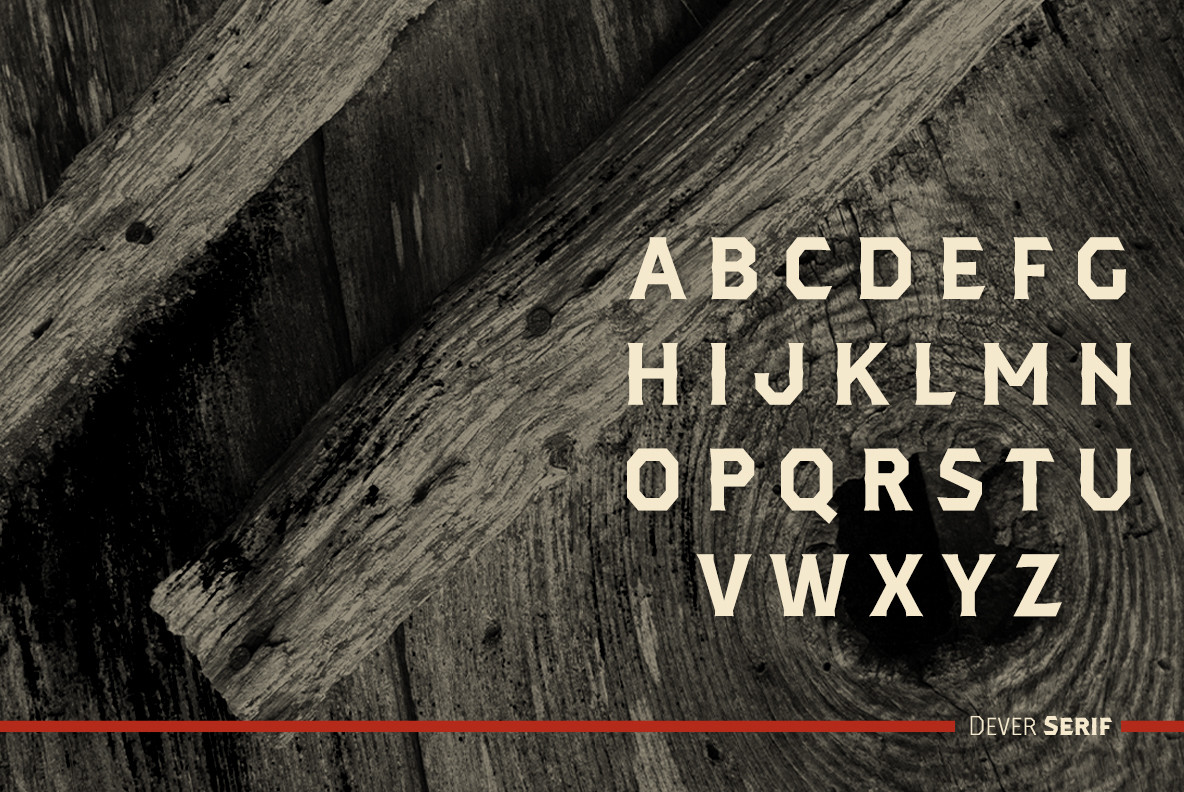
Dever Font
Any of the Dever family have an extended character set including Central and Eastern European languages. The strong faces have specially adapted sub-families, too, so they’re bound and determined to have an outstanding impact at whatever size you use ‘em. It’s a hard ride ahead corralling all those words. Be sure and add these able-bodied boys to your posse today.